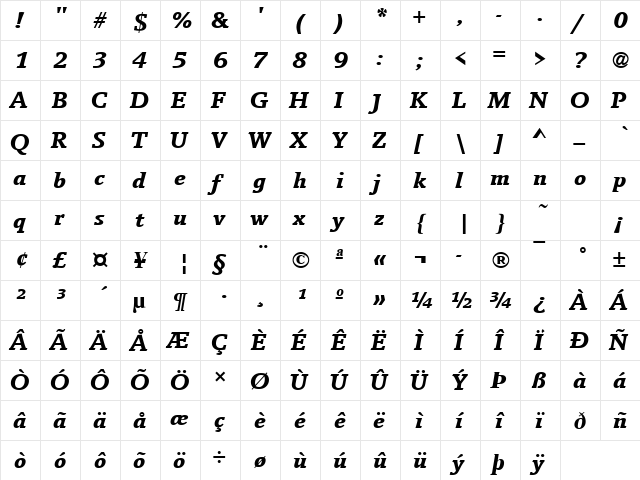
BreughelTBla Italic
Design Context for BreughelTBla Typeface
BreughelTBla offers clean, dependable letterforms without strong stylistic allegiance, making it a practical choice for designers who need flexibility. The slanted form adds forward momentum and visual energy.
Pro Tip: Use BreughelTBla for emphasis, pull quotes, and subheadings where its slanted energy can add rhythm to the layout.